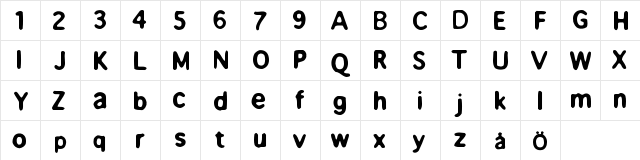
Beppofet Medium Font Preview
Beppofet Medium
Beppofet Medium Font Details
Design Context for Beppofet Typeface
Beppofet is a composed and adaptable typeface that performs quietly and consistently across a wide range of design contexts.